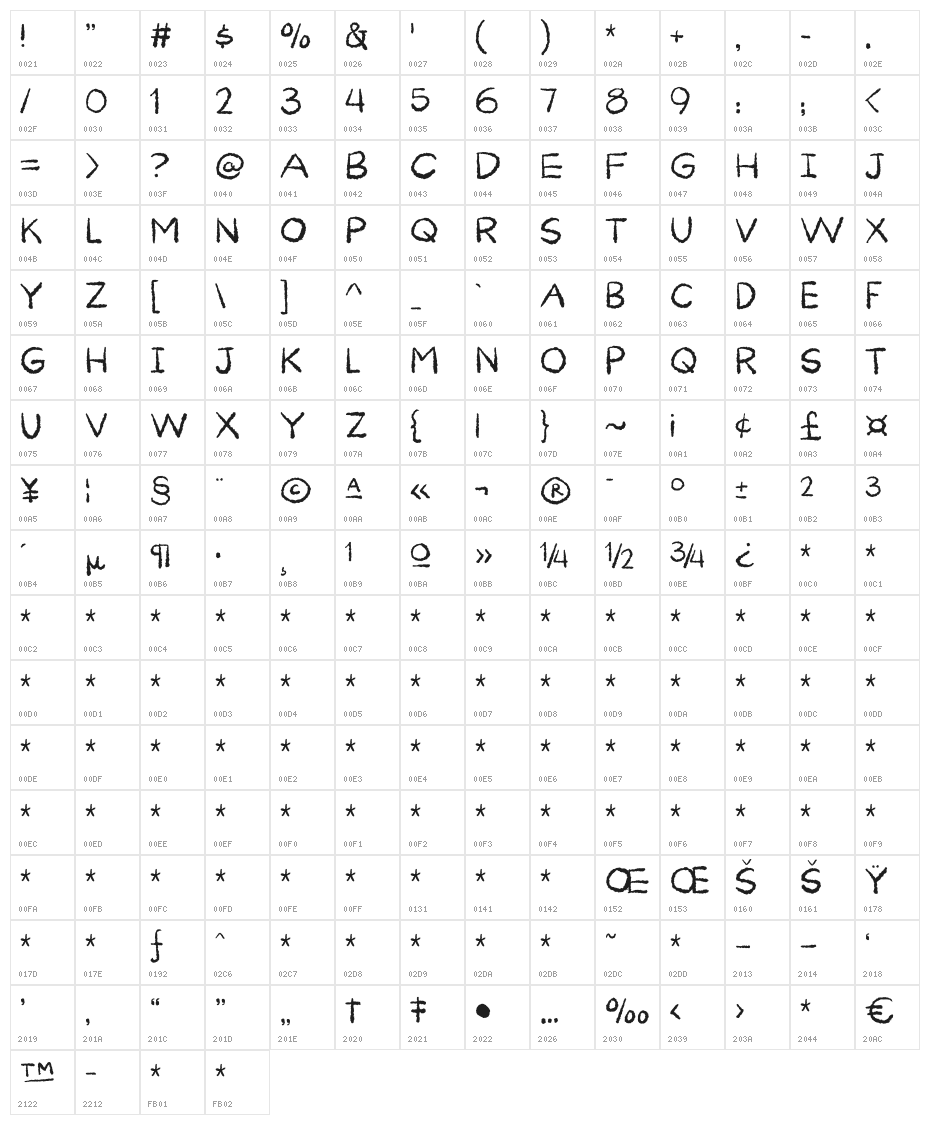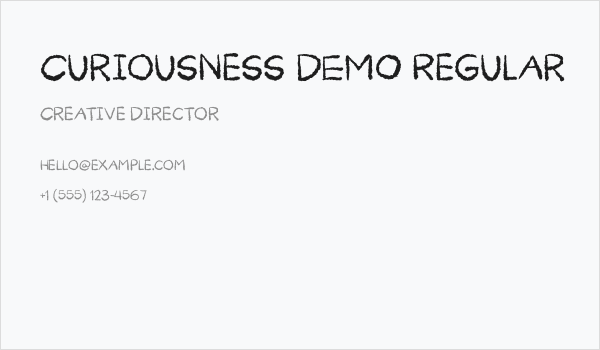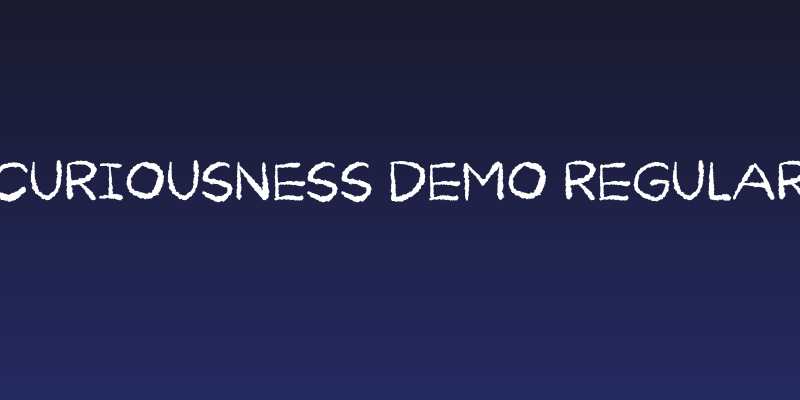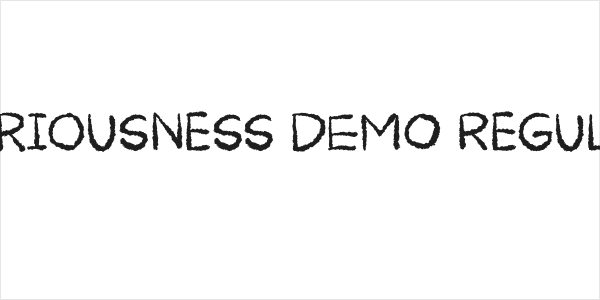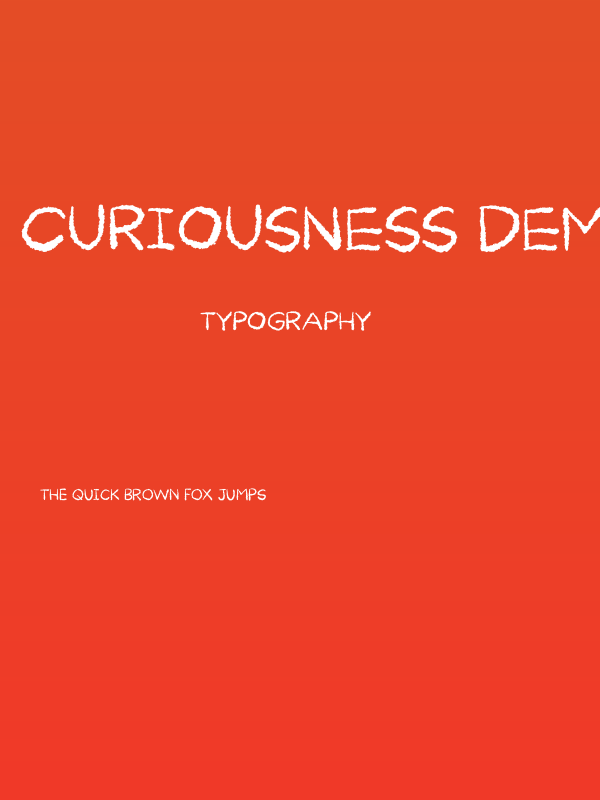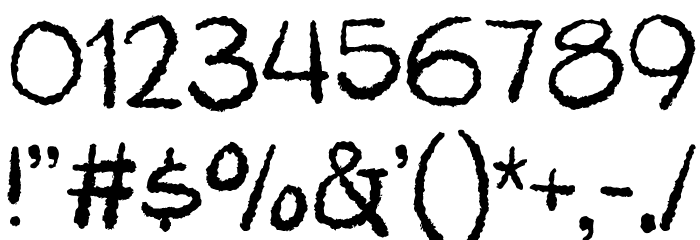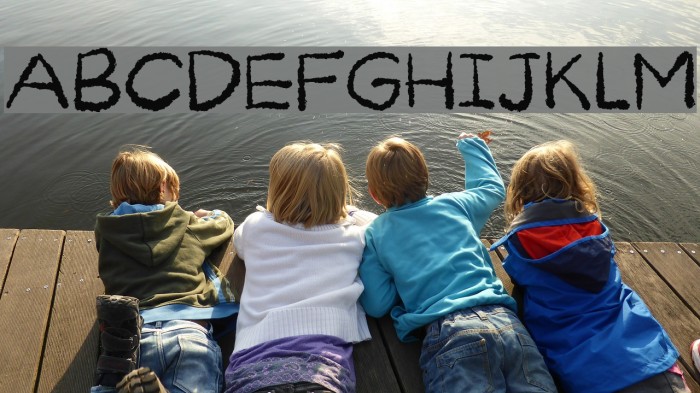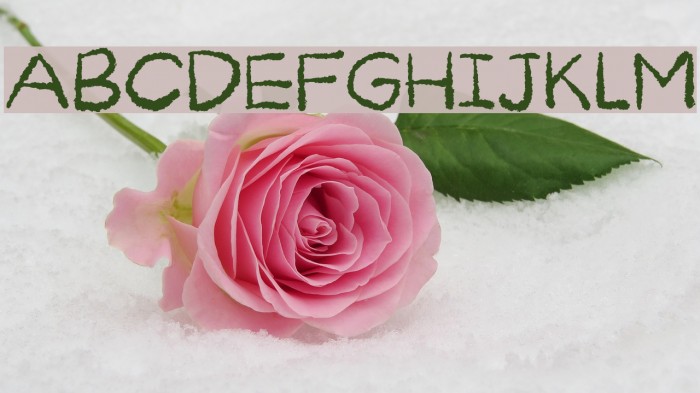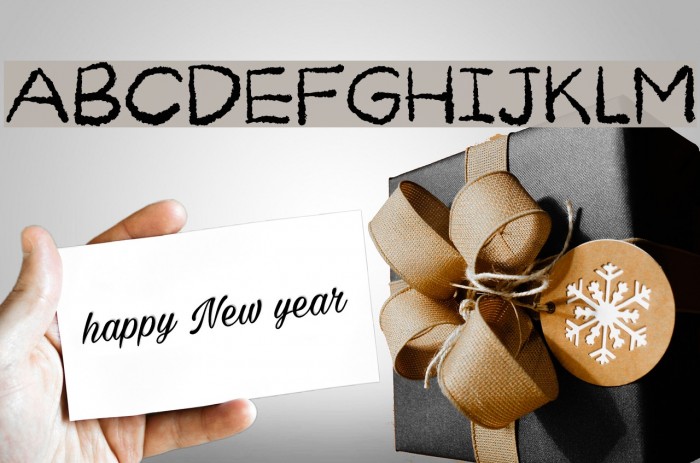
Curiousness DEMO Regular Font
Curiousness DEMO Regular Description
This font features a playful and hand-drawn aesthetic, reminiscent of chalk or crayon writing. The characters have a rough, textured appearance, giving them a casual and informal vibe. The uppercase and lowercase letters maintain a consistent style, with slightly irregular strokes that add to the font's charm. The numerals and special characters are equally expressive, making the font suitable for creative and artistic projects. Its unique style can capture attention and convey a sense of fun and creativity.
| Use Case | Headlines, Posters, Creative projects |
| Proposed Projects | Ideal for children's books, educational materials, playful branding, and creative posters. |